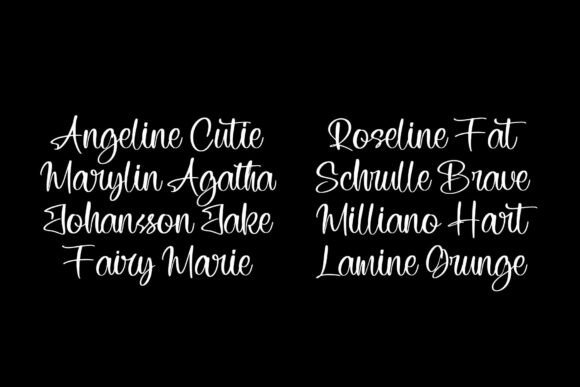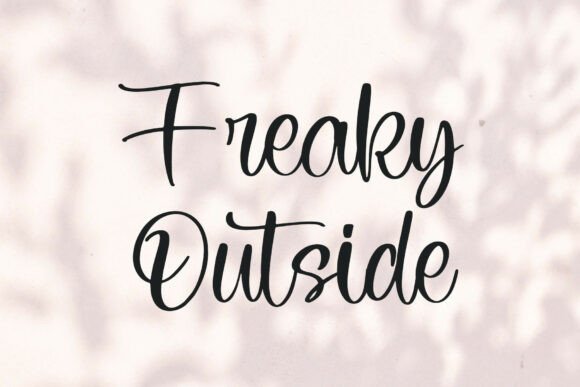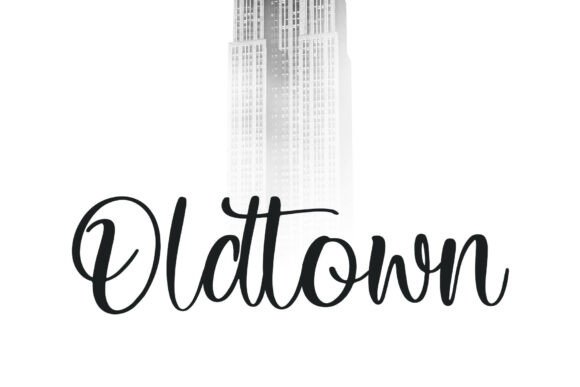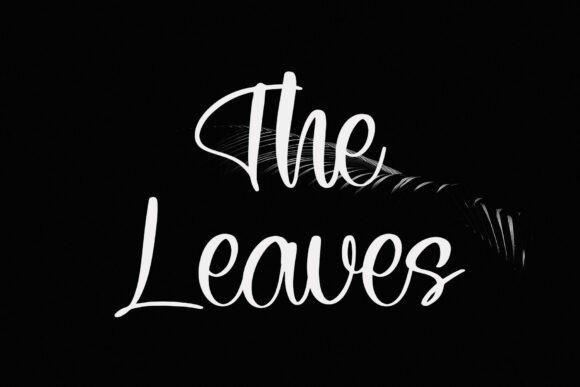
Introduction to Selected Font
As a designer, you’ve been there – staring at a blank canvas, trying to bring a concept to life, and desperately searching for the perfect font to set the tone. The moment you discover a font that speaks to your creative vision, it’s like a breath of fresh air. For many designers, that font is the Selected Font – a sweet and cursive handwriting font that adds a touch of whimsy and romance to any project.
Whether you’re working on a branding campaign, creating wedding favors, or designing a lookbook, the Selected Font is a valuable asset to have in your design arsenal. Its high-quality design and transparent background make it a perfect addition to any creative project. And the best part? You can download it for free, making it an excellent resource for designers on a budget.
Key Features of Selected Font
- High-Quality Design: Selected Font offers a premium design experience for your creative project, ensuring a professional look and feel.
- Transparent Background: Selected Font features a transparent background, making it easy to overlay on any image or design without any visual distractions.
- High Resolution: Selected Font is designed at 300 DPI, ensuring high-quality rendering on various devices and screen sizes.
- Unique Characteristics: Selected Font boasts a unique and modern design, making it an excellent choice for creative projects that require a touch of sophistication.
- Easy to Customize: Selected Font is highly customizable, allowing you to adjust font size, color, and style to suit your design needs.
Honest Review: Selected Font
As a designer, I’m always on the lookout for high-quality design resources to elevate my creative projects. Recently, I had the chance to work with the Selected Font and here’s my honest review.
- High-quality font designs with a focus on detail and precision.
- Transparent background, making it easy to use with any design element.
- Works well for both print and digital design projects.
- Limited font styles and variations, which may not be ideal for designers looking for a wide range of options.
Overall, I was impressed with the Selected Font and would recommend it for personal or small-scale design projects. Its high-quality designs and transparent background make it a great addition to any designer’s toolkit.
Tips for Getting the Most Out of Selected Font
Use the Selected Font on a transparent background to give your design a clean and modern look. Experiment with different font sizes and styles to add visual interest to your design. Use the font in conjunction with other design resources to create a cohesive and high-quality design.
Common Use Cases for Selected Font
Use the Selected Font for a variety of creative projects, including business cards, brochures, and social media graphics. The font is perfect for designers who need a high-quality, versatile font for their design projects.
Alternatives to Selected Font
Open Sans is a popular, high-quality font that is ideal for a wide range of creative projects. It’s a great option for designers who want a clean and modern look. You can download it for free, making it a fantastic design resource.
Compared to Selected Font, Open Sans has a more modern feel and is highly versatile. It’s perfect for use in logos, headings, and body text.
Montserrat is a sleek and modern sans-serif font that’s perfect for designers working on creative projects. Its clean lines and high-quality design make it an excellent choice for use in headings and body text.
When compared to Selected Font, Montserrat has a more urban feel and is ideal for use in digital design projects. It’s also highly customizable, making it a great option for designers who want to add a unique touch to their work.